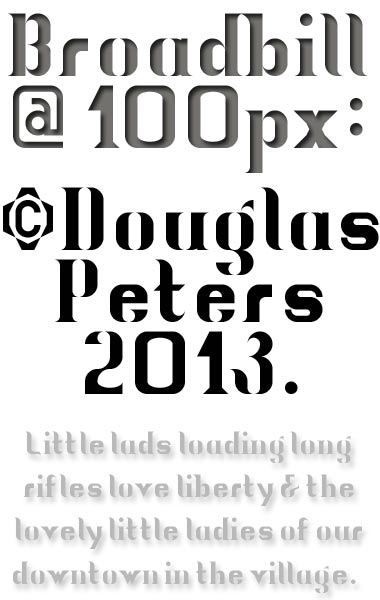
Looks better in larger sizes because of the almost stencil-like quality of letters due to the openess produced by the thin curves that give it it's style.
I changed the spacing of the space and addressed the spacing of a few other letters, including the lower case f, t, v and such. I also redesigned the 5 and the and-sign (&) to more reflect the style and threw-in or corrected a few of the serifs. I included a new graphic with the updated font at the 380px width resolution this time (especially since the last image I uploaded went fuzzy in image reduction).
Very coherent styling. I love those serifs and appreciate the European accents. 10/10.
I agree with Aeolien! Great work. I think some letters like
y, v, w,s, x, and r could be improved, but other than that, nice job!
My wife is from Poland so I wanted to add her "S with Cedilla" and I saw a lot of other useful stuff as I was looking for it, so I just started adding them. There's seemingly no end to them, though. LOL
@winty5: I agree with you as well, I don't really know how to address the letters that I can't easily add serifs to. But if I can figure that part of it out I will want to do more serifs.